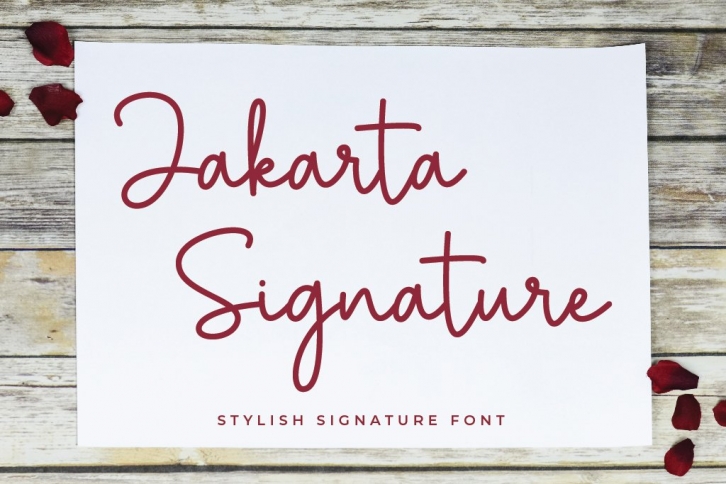
Jakarta Signature is a beautiful font that was designed by Cherryline Master. It's a great choice for designers and creatives who need such a font. It was released on February 22, 2021 and the file size is 19.85 MB. Jakarta Signature may give a more youthful, expressive and casual look to your project. It is a very beautiful, refined, elegant, and high-quality font.